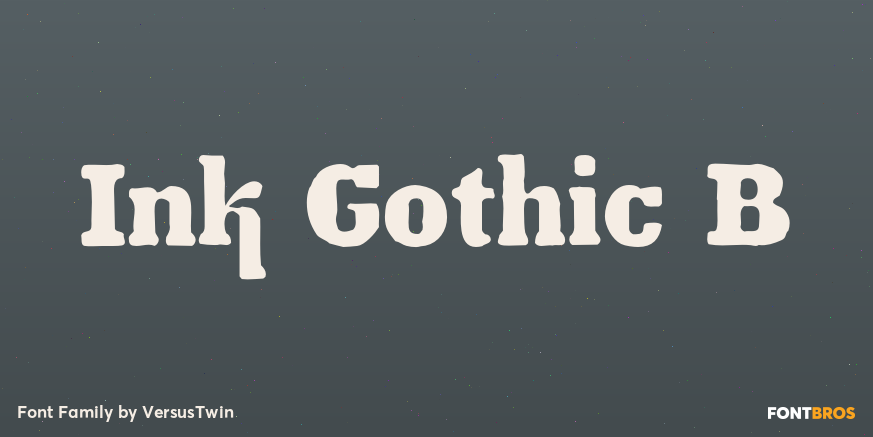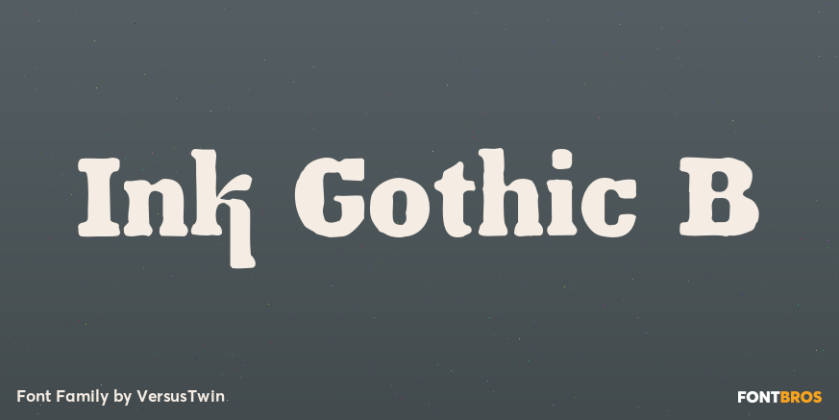
Ink Gothic B
About Ink Gothic B
Ink Gothic is a contemporary slab serif with a split personality – a mix of heavy industrial with light typographic twists. Unique letterforms evolve the typeface into a class all its own. The Ink Gothic Alt styles add italic letter-styling and cursive…